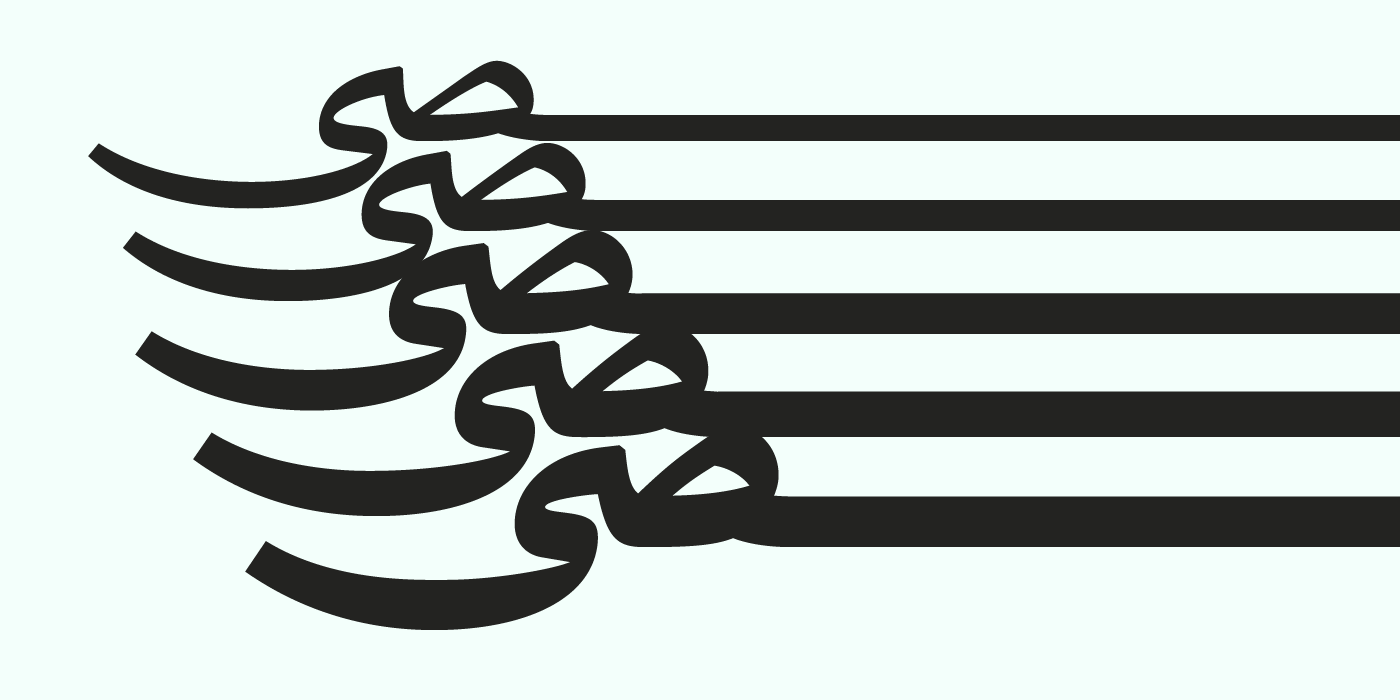
Dahab Arabic is a modern Arabic typeface designed by Ahmed Zaza. the design is inspired by the Naskh style. The result is a hybrid that combines modern proportions with Classic Arabic scripts. it’s suitable for branding, editorial, packaging, and advertising. Dahab Arabic Features five weights from regular to black.
Dahab Arabic typeface – خط دهب العربي
Dahab Arabic is a modern Arabic typeface designed by Ahmed Zaza. the design is inspired by the Naskh style. The result is a hybrid that combines modern proportions with Classic Arabic scripts. it’s suitable for branding, editorial, packaging, and advertising. Dahab Arabic Features five weights from regular to black.
Weights |
Regular, Medium, Bold, Extra Bold, black, Sub (Regular – bold – black), Family |